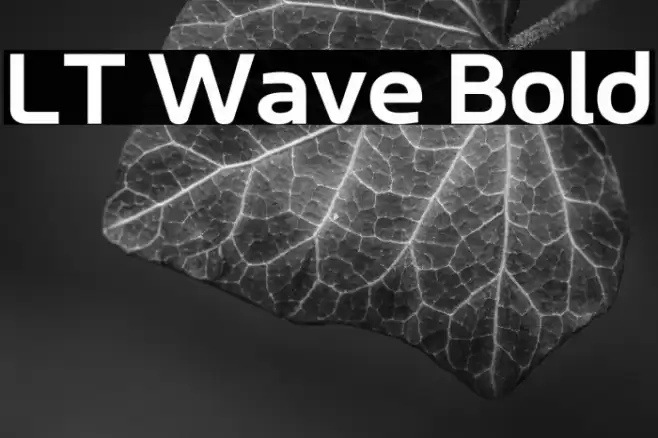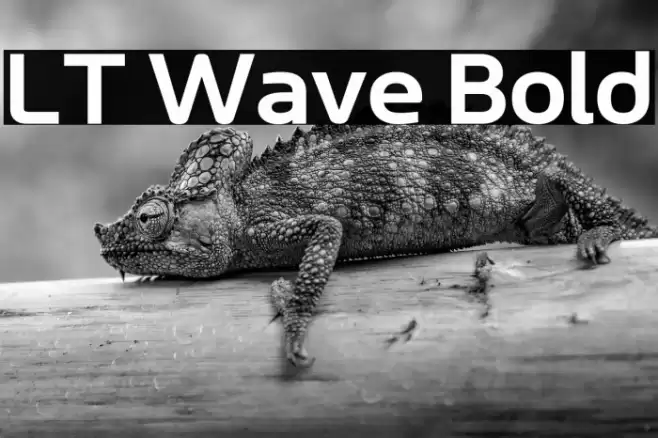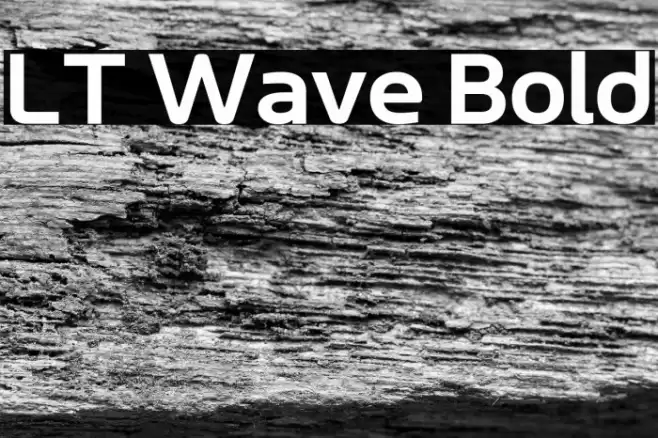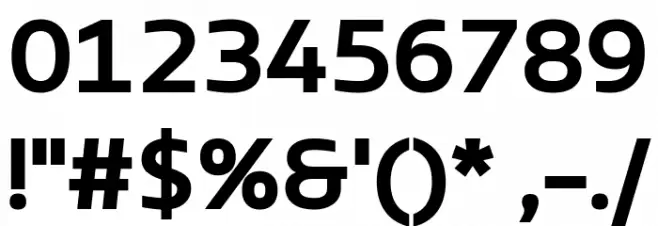
LT Wave Bold Font
LT Wave Bold Description
This font features a modern and clean sans-serif style with bold, uniform strokes. The characters are well-balanced, offering a harmonious and professional appearance. The uppercase letters are slightly taller than the lowercase, providing a clear distinction between the two. The numerals are consistent in height with the uppercase letters, ensuring readability. Special characters are designed to match the overall aesthetic, with smooth curves and sharp angles. The font's simplicity and clarity make it suitable for a wide range of applications, from digital interfaces to print media.
A bold, modern sans-serif font with clean lines and uniform strokes from Uncategorized fonts.
- Proposed Projects: Ideal for branding, digital interfaces, advertising, and editorial design.
- Use Case: Headlines, Logos, Digital interfaces